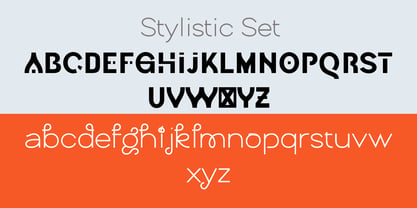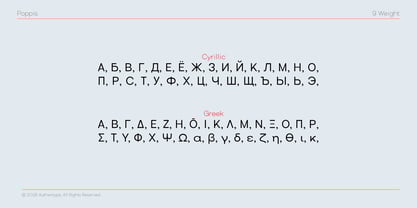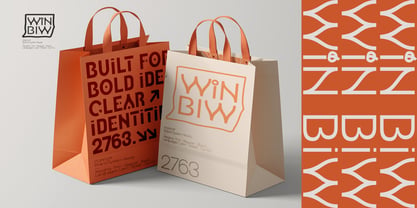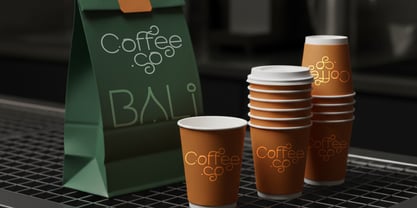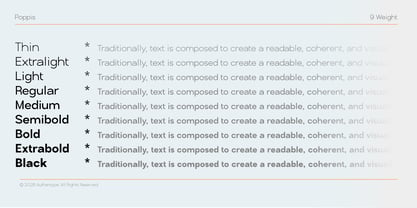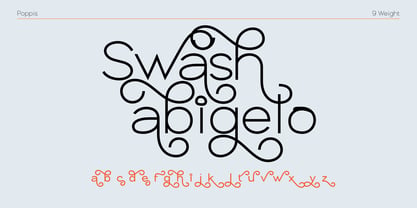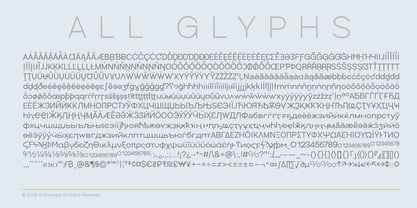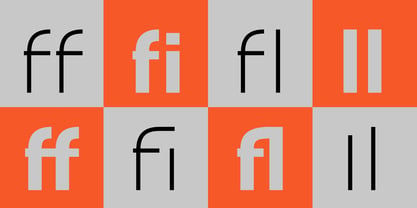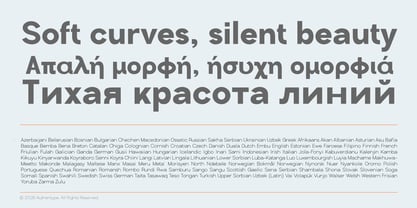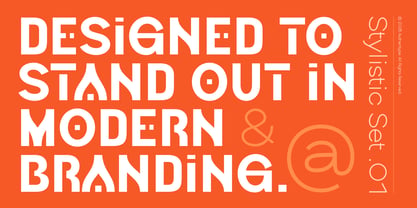
Poppis
La familia tipográfica Poppis fue diseñada por Ekayasa y publicada por Authentype. Poppis contiene 9 estilos y opciones de paquete familiar. Más información sobre esta familia
Poppis is a contemporary geometric sans-serif font that harmoniously blends technical precision with an artistic flair. Crafted for a striking visual identity, it exudes an exceptional visual appeal, making it ideal for branding, web design, and professional editorial endeavors. Key Features: * Nine Weight Variations: A comprehensive range of options, spanning from thin to bold, ensures a seamless design hierarchy. * Global Support: Seamlessly compatible with 127 languages, including Latin, Cyrillic, and Greek. * Advanced OpenType Features: Equipped with distinctive Stylistic Sets and decorative swashes that effortlessly transform standard text into logo artwork. * Super-Complete Glyphs: Includes eight ligatures, mathematical symbols, a diverse array of world currencies (including Bitcoin ₿), and fractions. Ideal Applications: * Contemporary branding * Futuristic logo design * Clean UI/UX * Premium product packaging